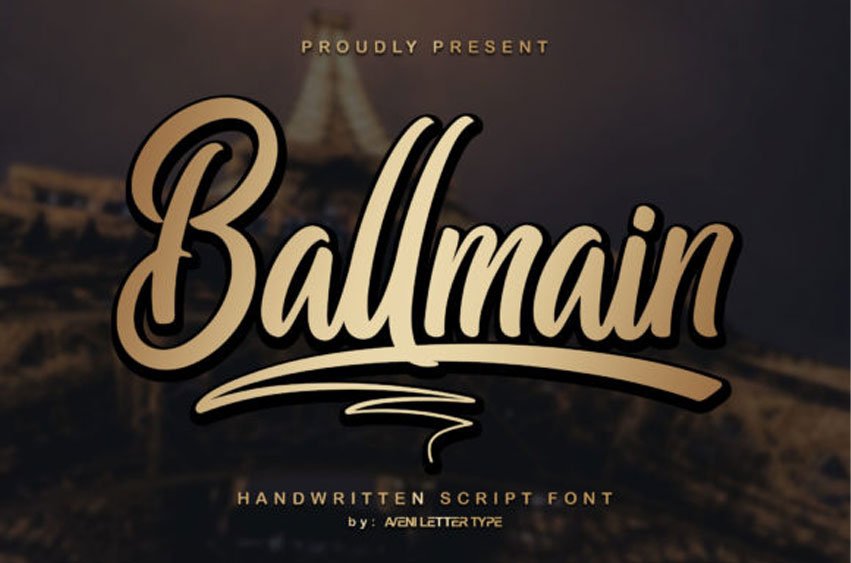
Ballmain Font
Ballmain Font is a cute script font.
It has a classy, elegant, and modern look that can be used for logos, branding, cosmetic tube, design flyer, business card, invitations, stationery, wedding designs, social media posts, and much more!